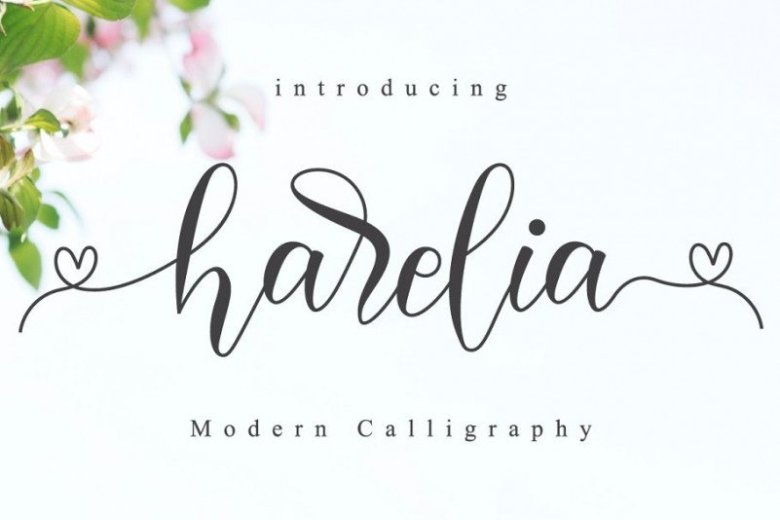
Harelia – Lovely Script Font
Say Hello Guy’s. Thank you for looking Harelia Font. It is design and shared by Nissa Studio. A lovely script font. It is a script font with typical handmade, a work that is purely a result of handmade, has a natural characteristic. It’s an equally classy and authentic handwritten font with a unique feel.
Fall in love with its organic swashes! This font perfectly made to be applied especially in branding design, and the other various formal forms such as invitations, labels, logos, magazines, books, greeting / wedding cards, packaging, fashion, quotes, make up, stationery, novels, labels or any type of advertising purpose.